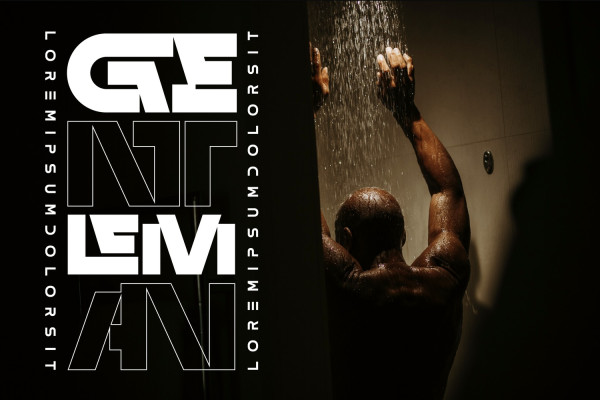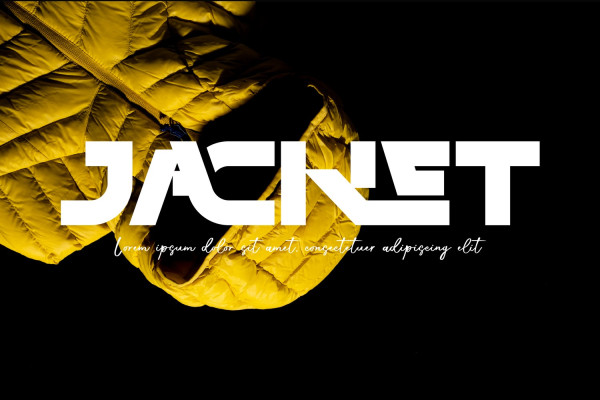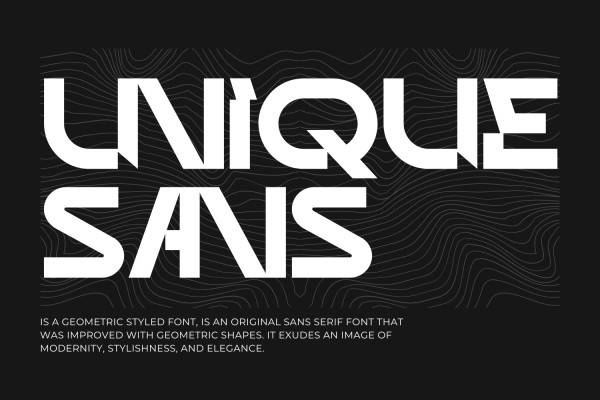
Unique Sans Font
Unique Sans Font is a geometric styled font, is an original Sans Serif font that was improved with geometric shapes. It exudes an image of modernity, stylishness, and elegance. The geometric, near-monoline construction lends a classic durability, tempered by softened edges and vibrant shapes.
Unique Sans was built with OpenType features and includes 100 ligatures, alternate, numbers, punctuation, and it also supports other languages.
AC AD AL AN AR AS AT AU AV BE CA CE CH CO CT DE DI EA EC ED EE EL EM EN EP ER ES ET FE FO FR GE HA HE HI HO IE IC IL IN IO IR IS IT JU KE LA LE LI LL LO LY MA ME MI NC ND NE NG NO NT NS OC OF OM ON OO OP OR OT OU OW PA PR RA RD RE RI RO RS RT SE SH SI SO SS ST TA TE TH TI TO TR TT UM UN UR VE WI WO